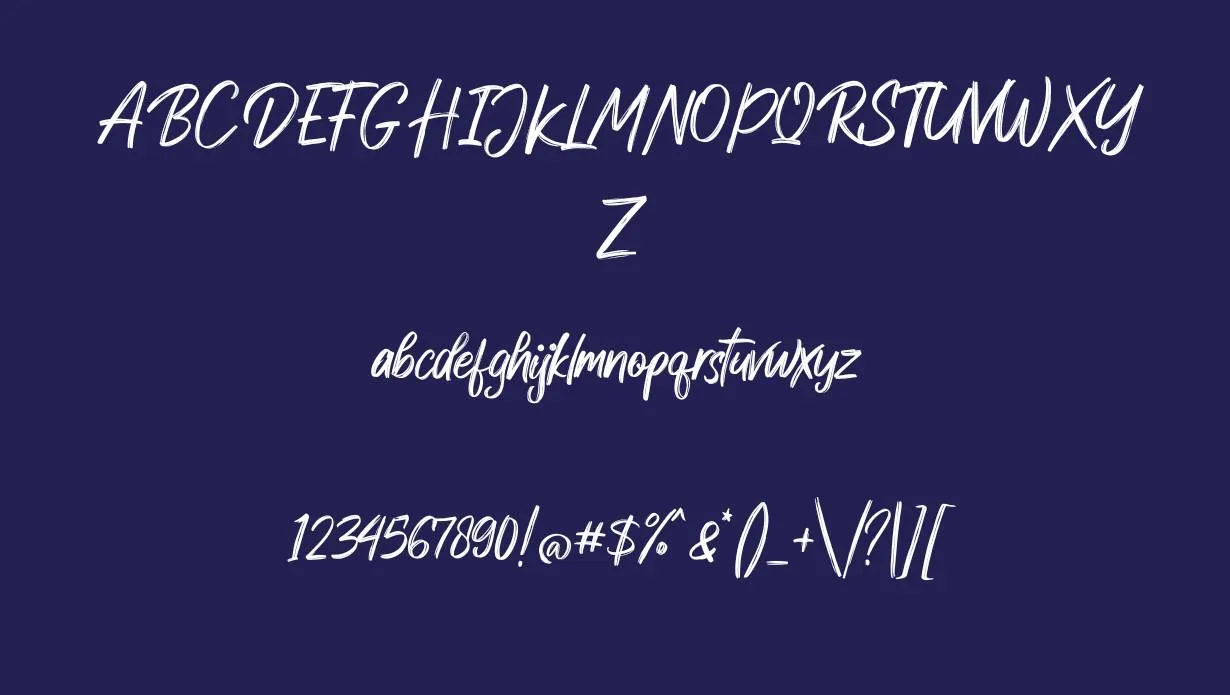
Dexotick Brush Font is a flexible and expressive typeface that resembles a brush. It is frequently utilized in creative branding, advertising, and projects that seek to make a strong and artistic visual statement.
The font’s brush strokes and fluid letterforms add a sense of creativity and dynamism to your designs.
Dexotick Brush Font Family